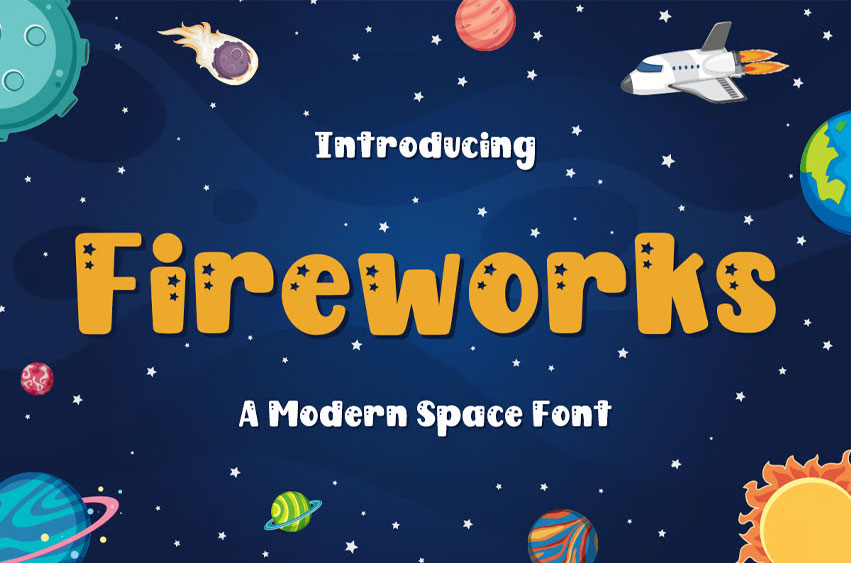
Fireworks Font
Fireworks Font is a bold and energetic display font designed to capture attention and spark imagination. Its lively, rounded letterforms and playful curves make it the perfect choice for vibrant and youthful designs. With a cheerful personality, Fireworks brings a sense of excitement and creativity to every project it touches.
This font was crafted with kids in mind—whether it’s for school themes, educational games, or colorful bulletin boards, Fireworks delivers fun in every character. Its readability and whimsical style make it ideal for classroom posters, activity sheets, and student projects, keeping young eyes engaged and entertained.
Fireworks also shine in the world of children’s books and magazines. Its expressive and dynamic shapes help bring stories to life, making reading a more enjoyable and immersive experience. From titles and headlines to playful page accents, Fireworks adds that extra burst of energy every page needs.
Toys and packaging are another perfect match for this font. Fireworks adds excitement and visual appeal to toy labels, boxes, and promotional materials, helping products stand out on shelves and appeal to kids and parents alike. Its versatile charm ensures it fits right in with any child-centered branding.